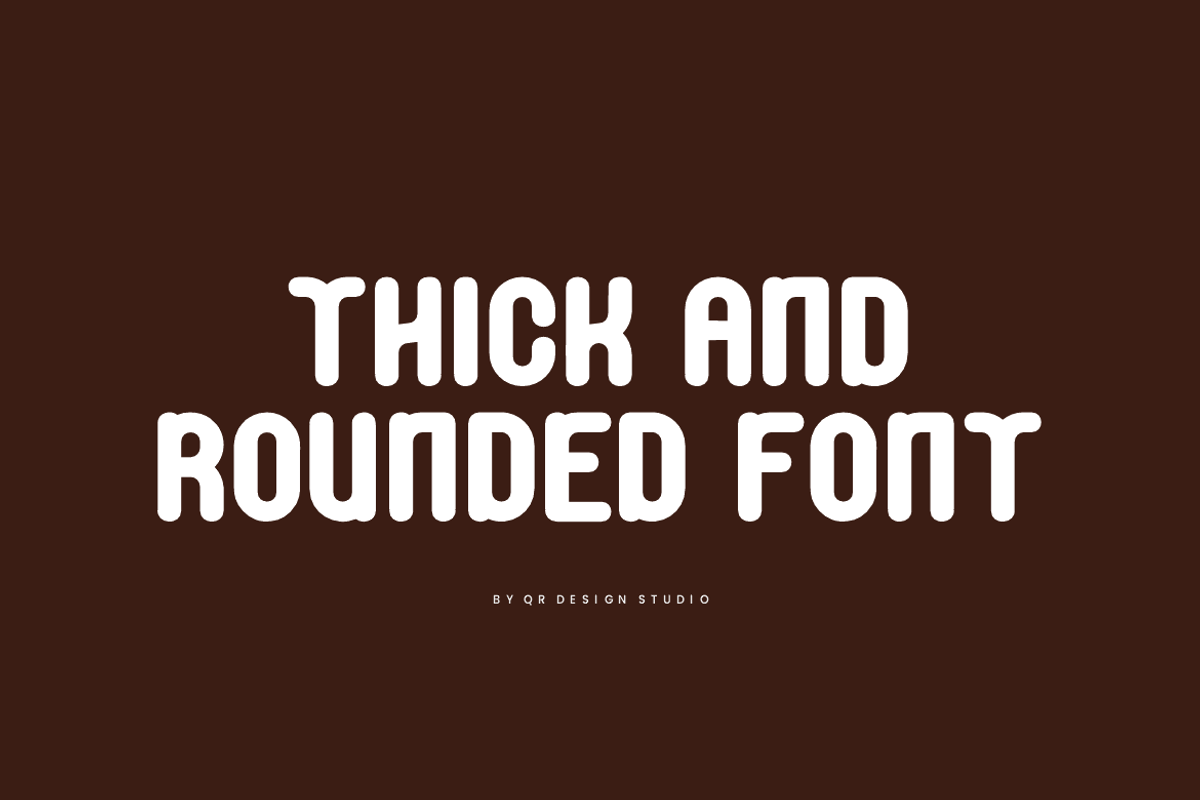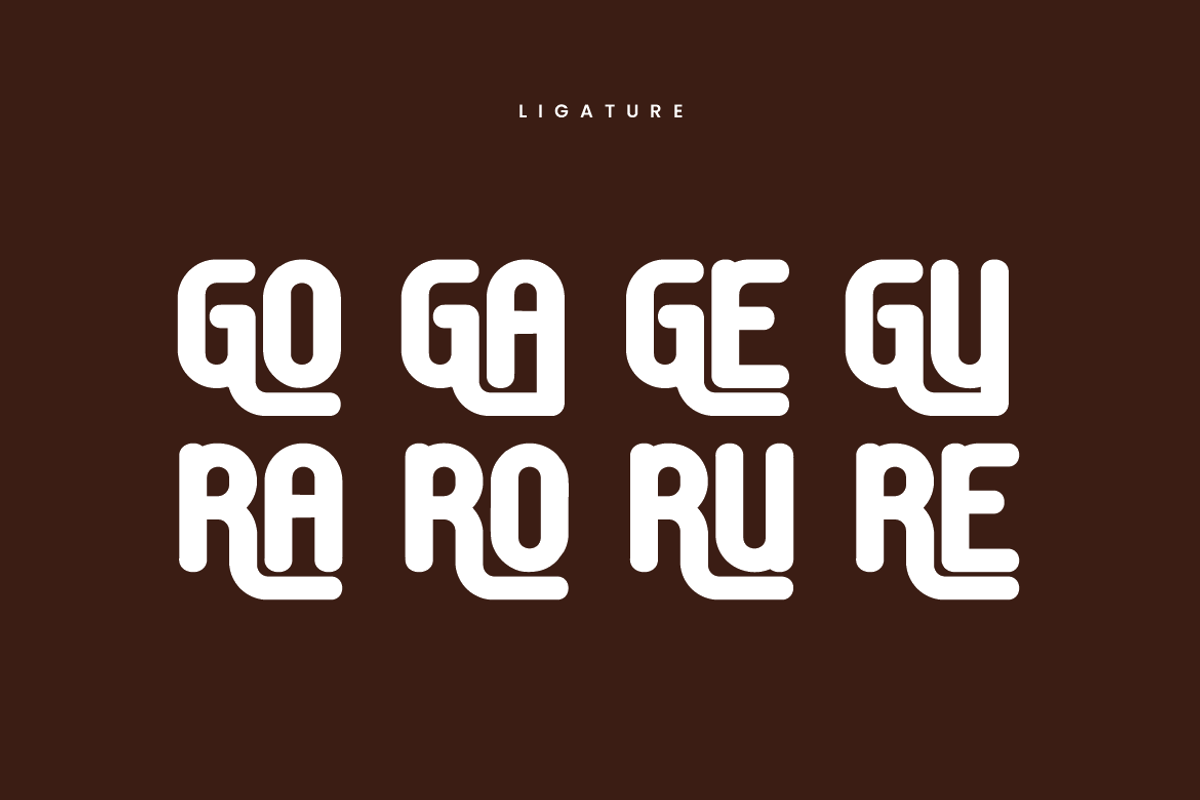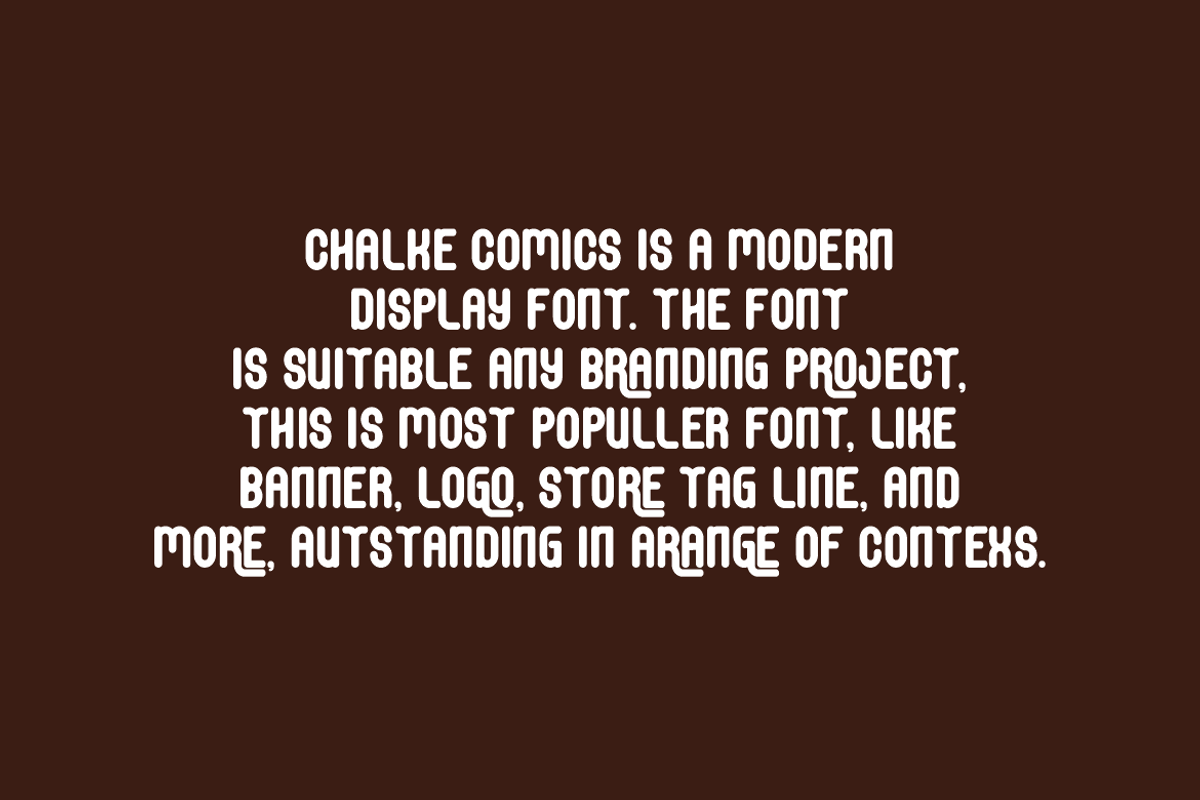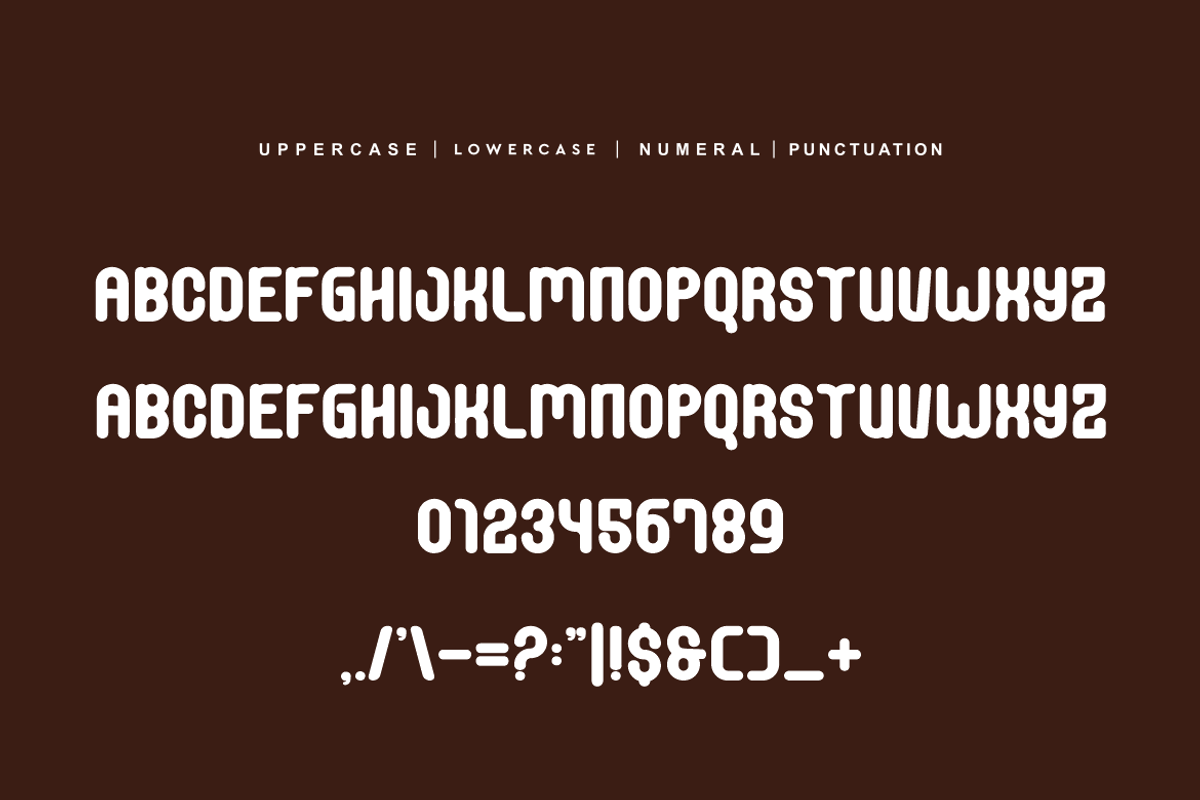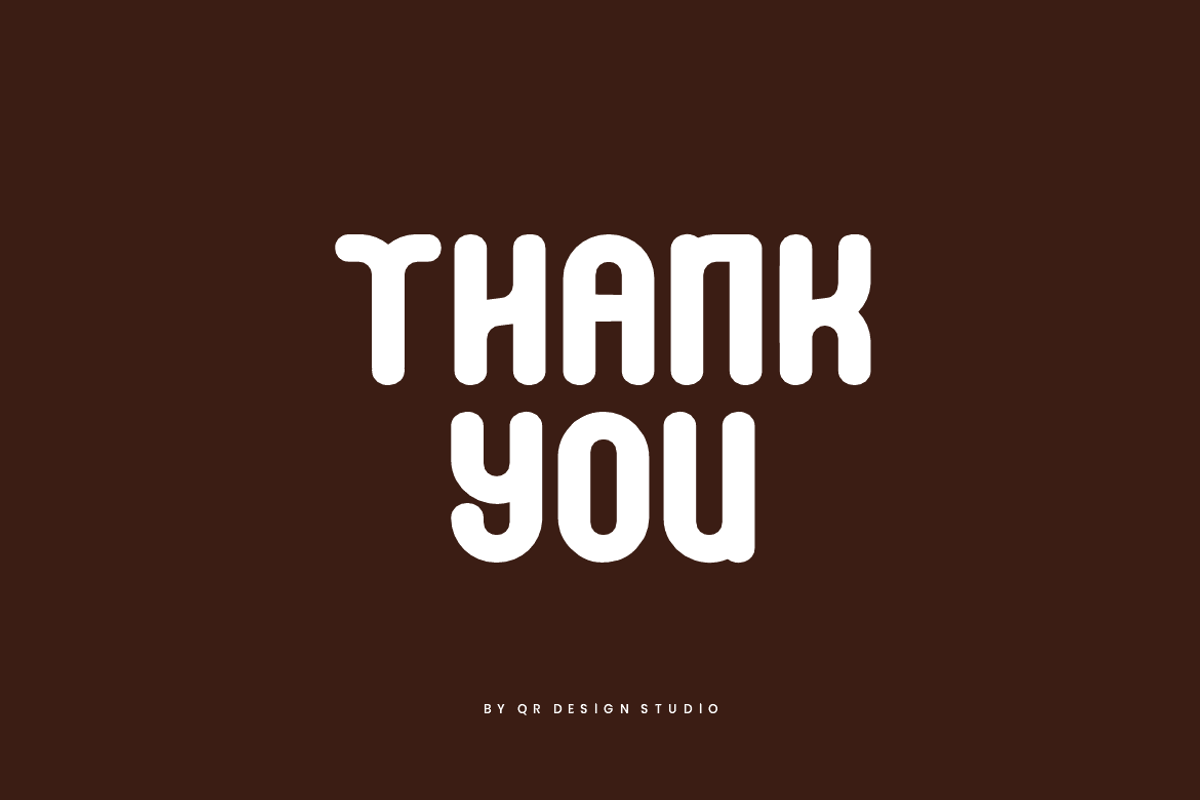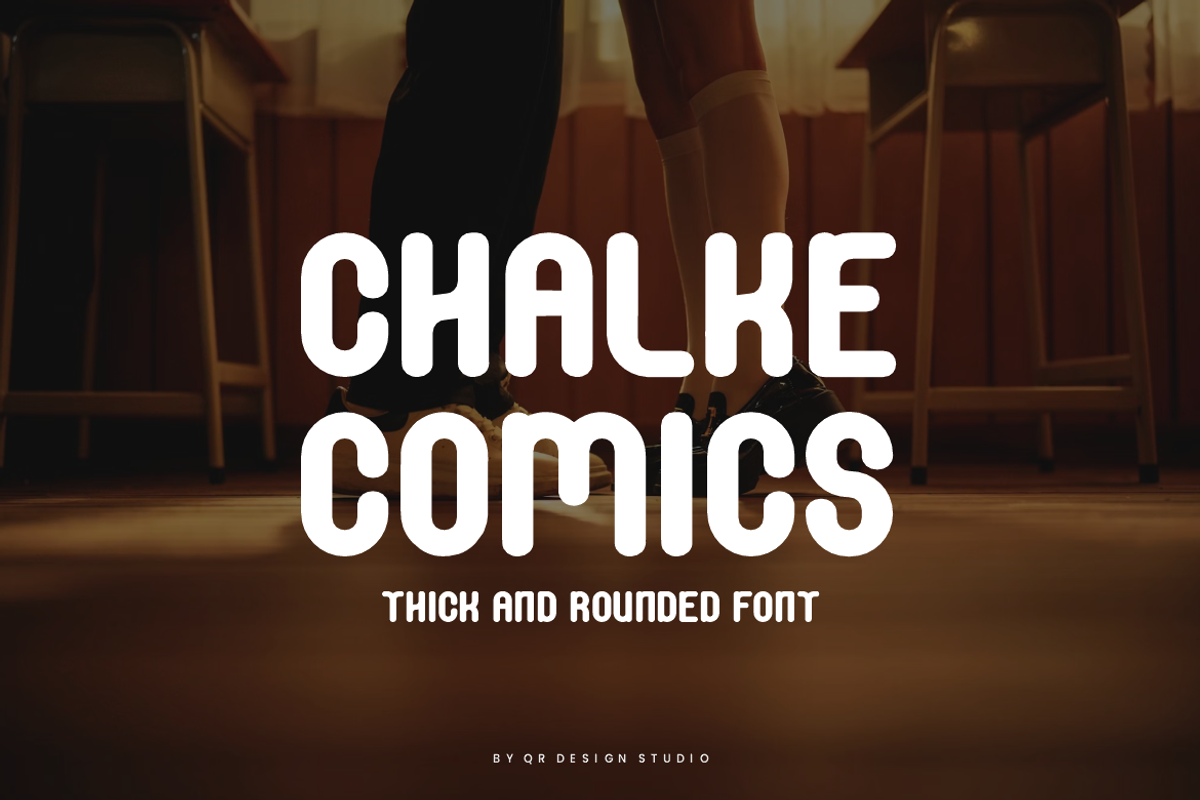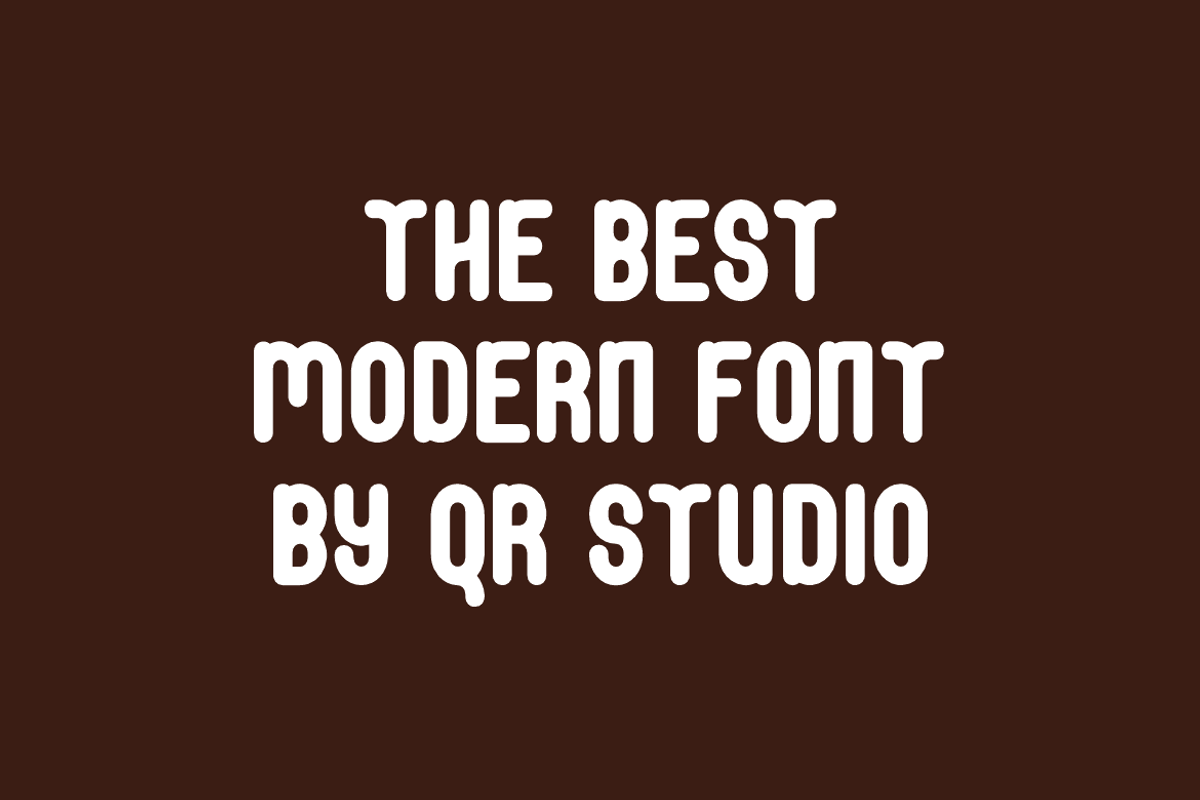
Chalke Comics - Thick & Rounded Font
Chalke Comics Font is a bold and authentic display font. The font is suitable for any branding project like poster, logo, sport, and many more. Outstanding in a wide range of contexts.